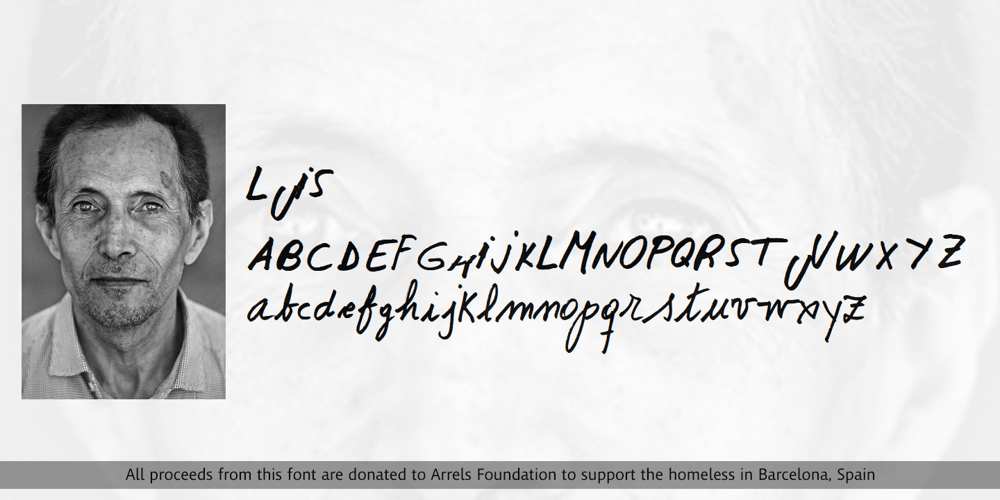
Luis Serra Font Family was designed by published by Homelessfonts. Luis Serra contains 1 styles and family package options. Homelessfonts is an initiative by the Arrels foundation to support, raise awareness and bring some dignity to the life of homeless people in Barcelona Spain. Each of the fonts was carefully digitized from the handwriting of different homeless people who agreed to participate in this initiative. Please Note: these fonts include only the latin alphabet; no accented characters, no numbers or punctuation. MyFonts is pleased to donate all revenue from the sales of Homelessfonts to the Arrels foundation in support of their mission to provide the homeless people in Barcelona with a path to independence with accommodations, food, social and health care. Luis Serra was born in Alicante. There he grew up and even started a family His life was there. But at the age of 35 he split up with his wife and decided to go to Barcelona in search of a new life. And it wasn’t easy for him. He had to turn his hand to all kinds of jobs and didn’t manage to find the stability he needed. Luis is a shy, retiring person who takes great pleasure in the little things in life such as walking in the mountains or celebrating the victories of his football team, Barça. After four years living in Barcelona, Luis found himself in a position he’d never imagined. “The street’s much worse now, there’s more trouble, there’s more tension,” says Luís. In the street he had to learn, as he always had, to move fast, to find a place to sleep and something to eat. Luís is one of those people who don’t let circumstances mould him, but adapts to them and always tries to do his best.